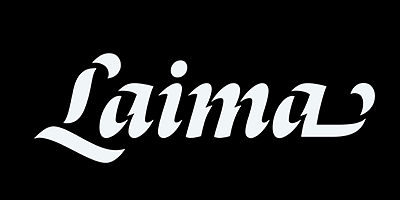
Laima Font Free Download is an elegant, sophisticated serif typeface designed for high-end branding, editorial design, and luxury projects. With its refined curves, balanced proportions, and classic appeal, this font is perfect for magazines, invitations, logo design, and other premium branding materials that require a touch of grace and timeless beauty.
Laima Font Free Download combines modern legibility with traditional serif features, making it versatile enough for both display use in headlines and more subtle applications in body text. Its high contrast and stylish flourishes add a sense of prestige, making it ideal for projects where elegance and professionalism are key.